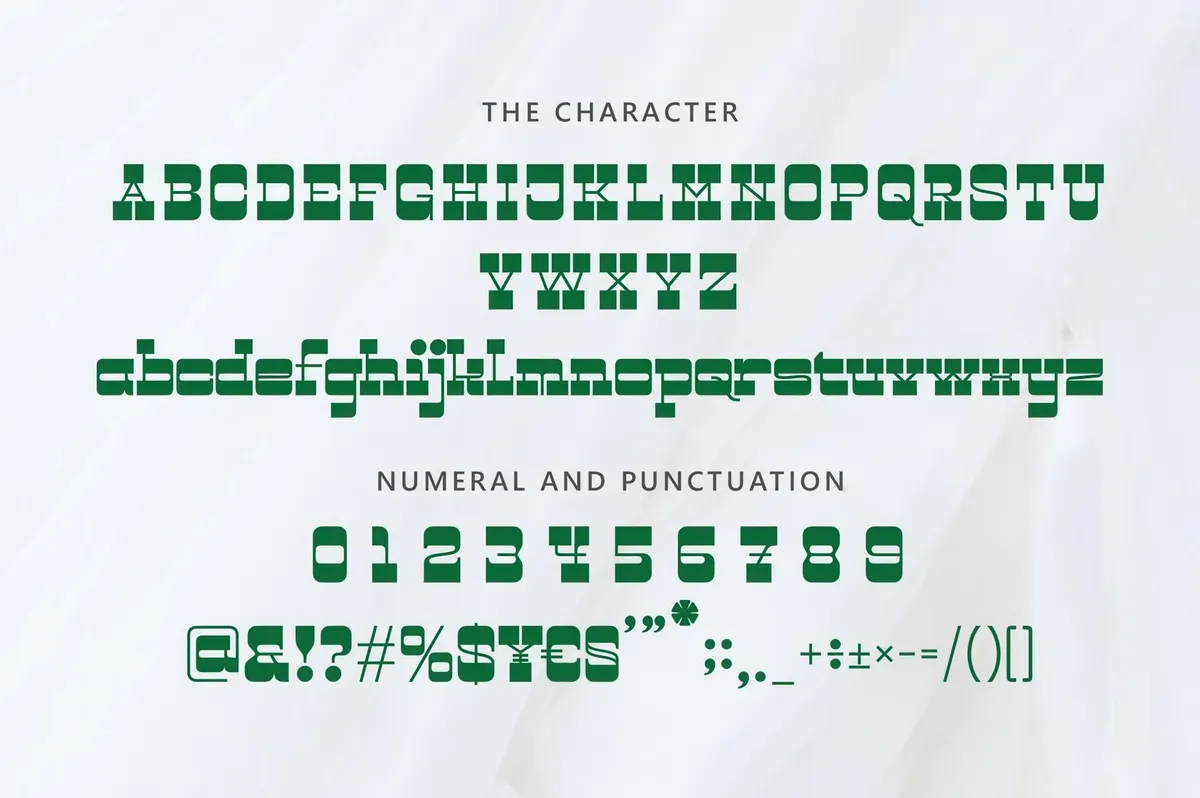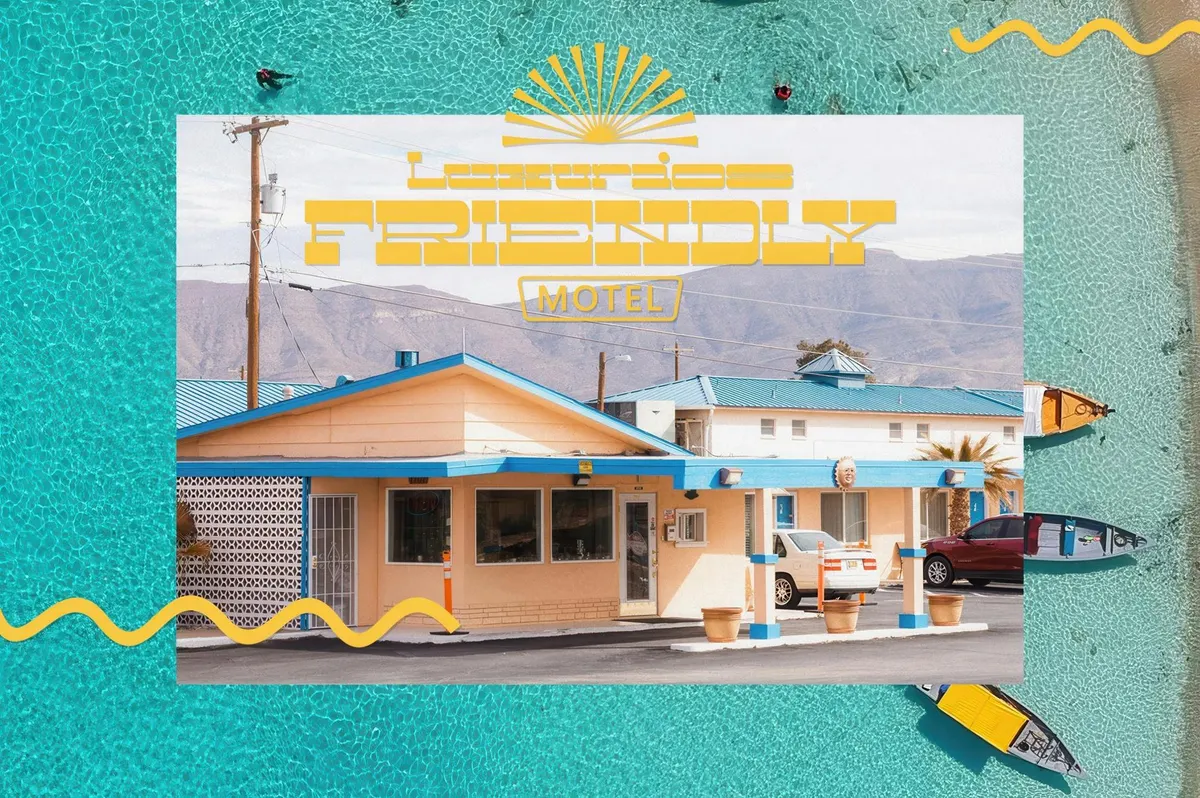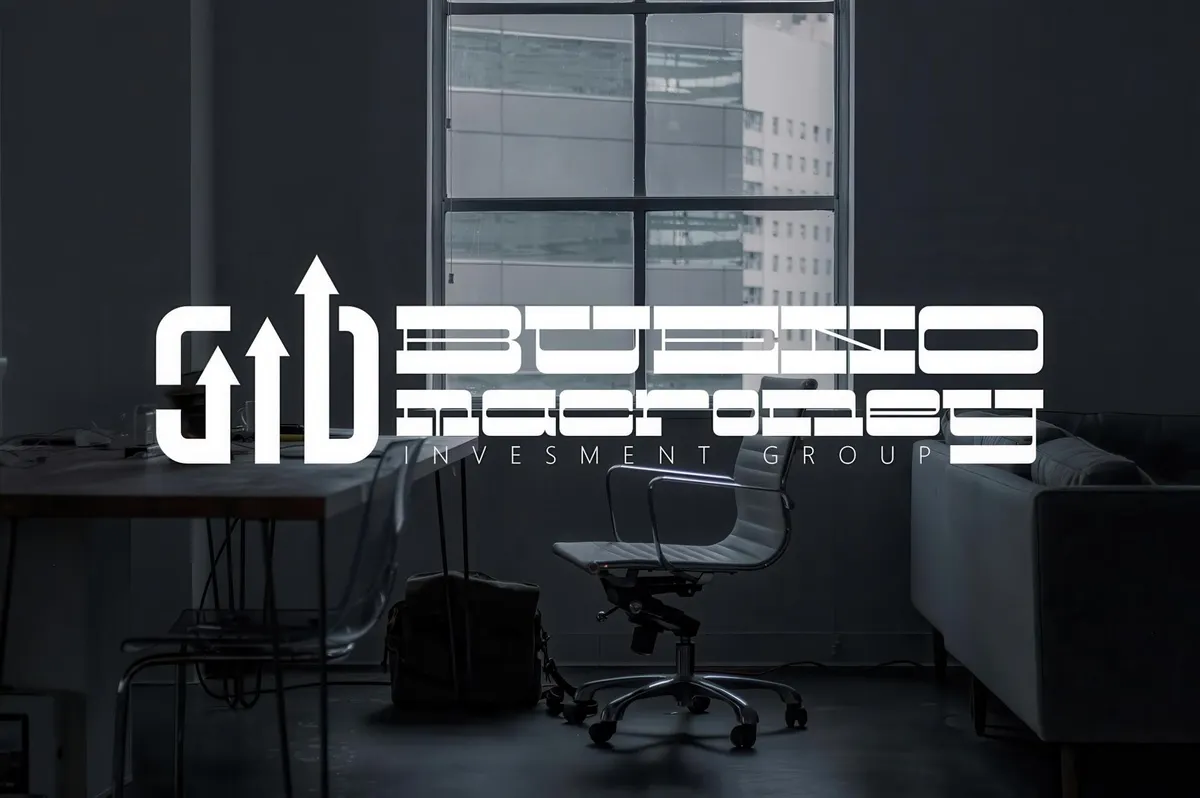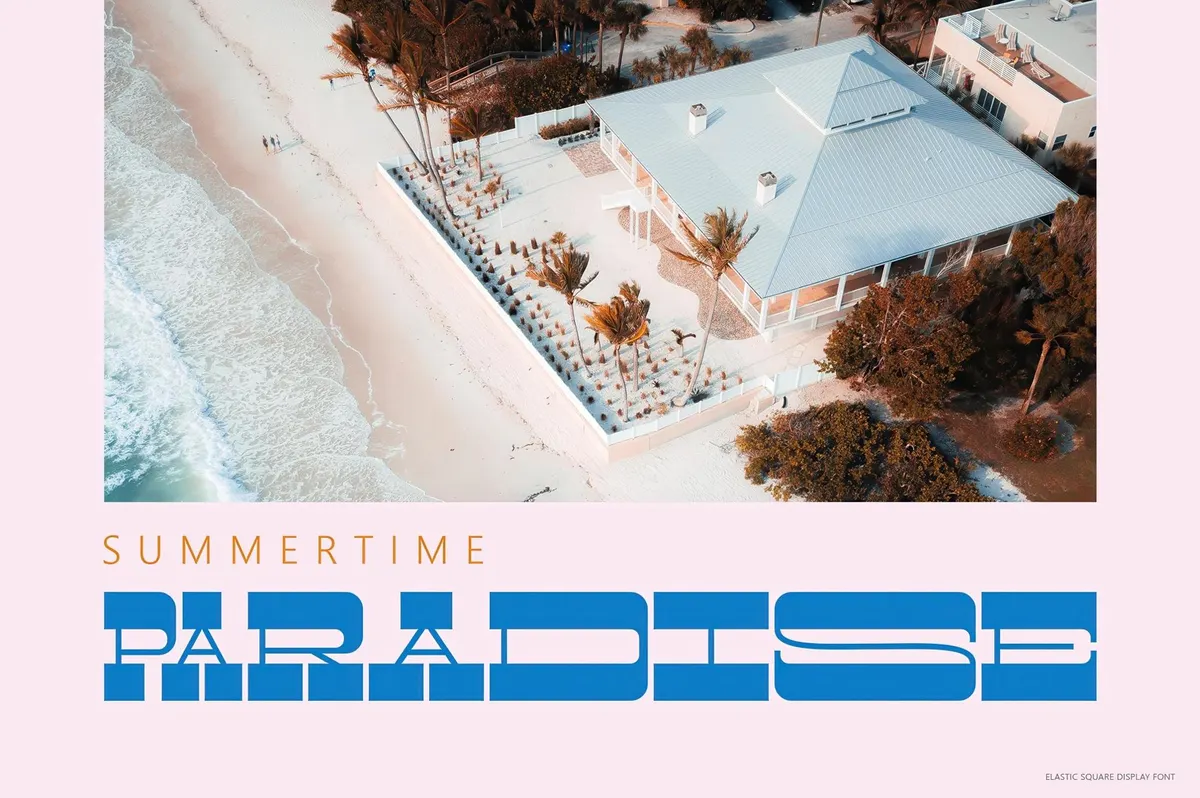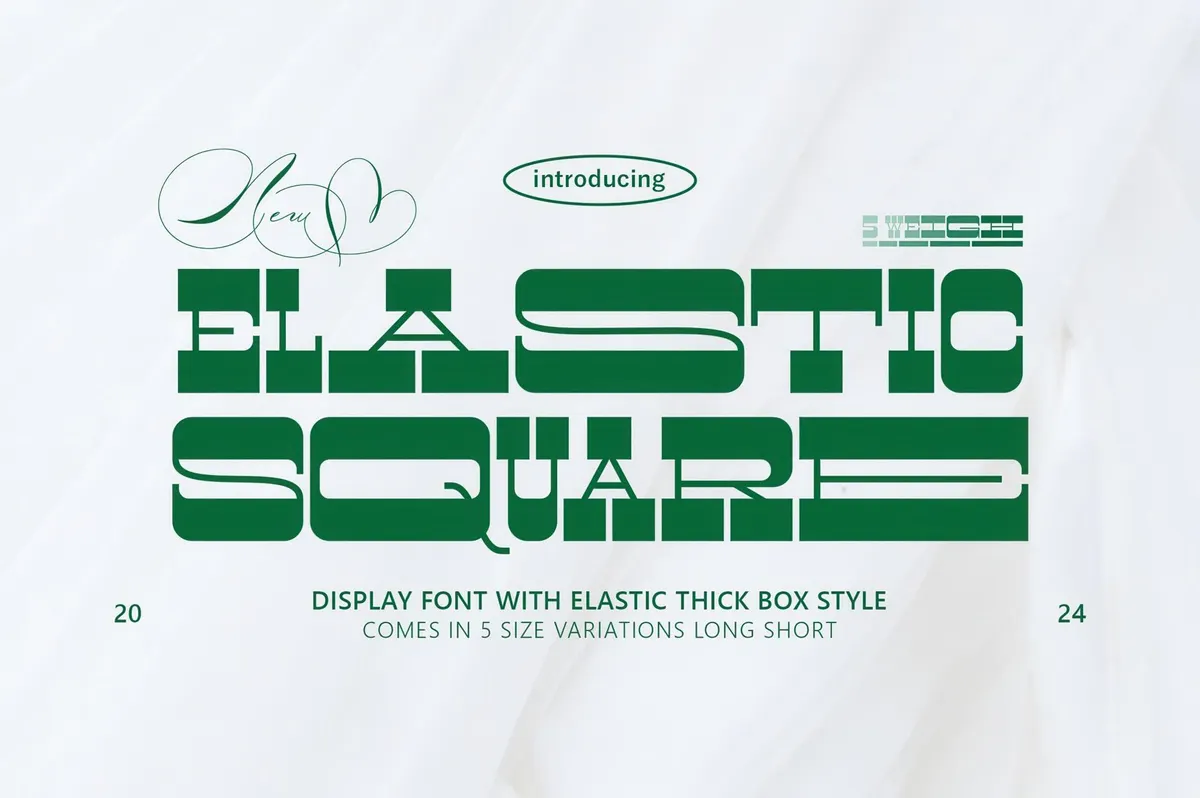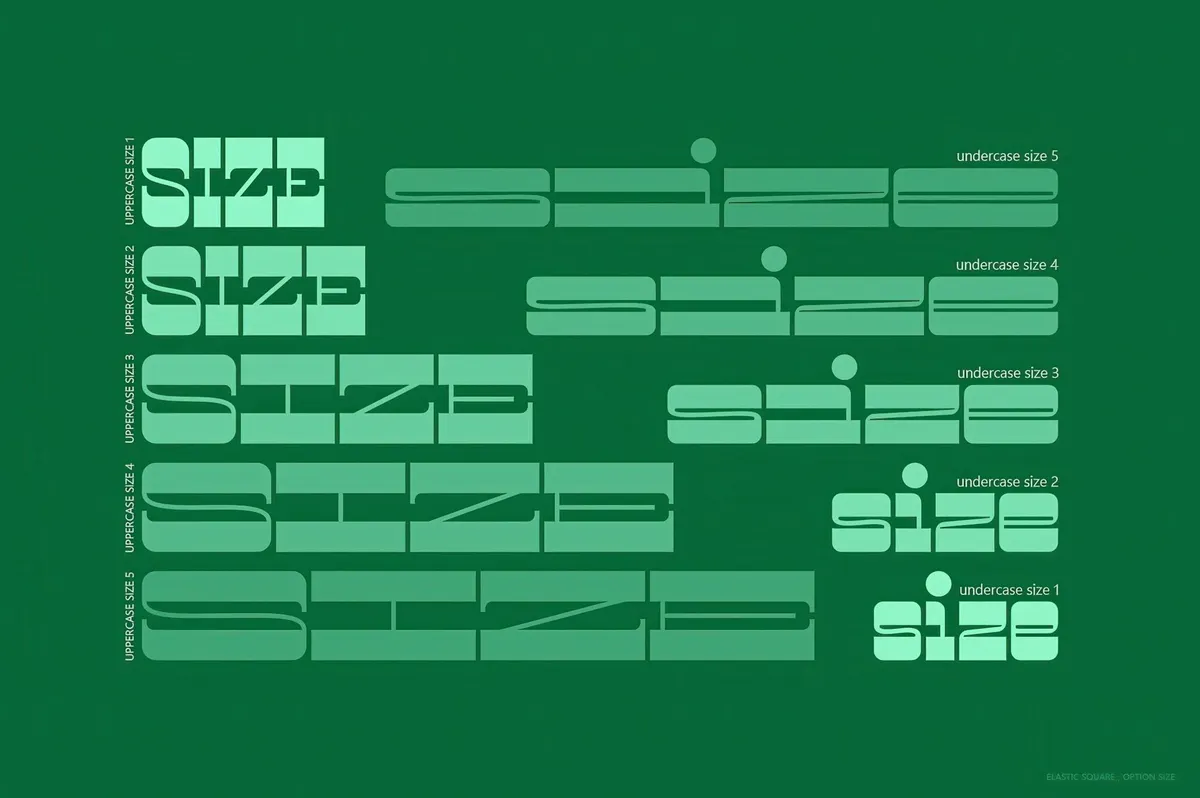
ELASTIC SQUARE — Display Font
Forget subtle. Elastic Square is all about stretching expectations and snapping back with graphic muscle. This chunky display font bends the rules with a bold boxy style and 5 size variations that range from slick and condensed to dramatically elongated. It's loud, proud, and geometric. Equipped with uppercase and lowercase sets, multilingual support, numbers, punctuation, and a full kit of OpenType features — including stylistic alternates, swashes, ligatures, and contextual magic — Elastic Square turns basic typography into an optical performance. Ideal for branding, logos, packaging, and apparel.